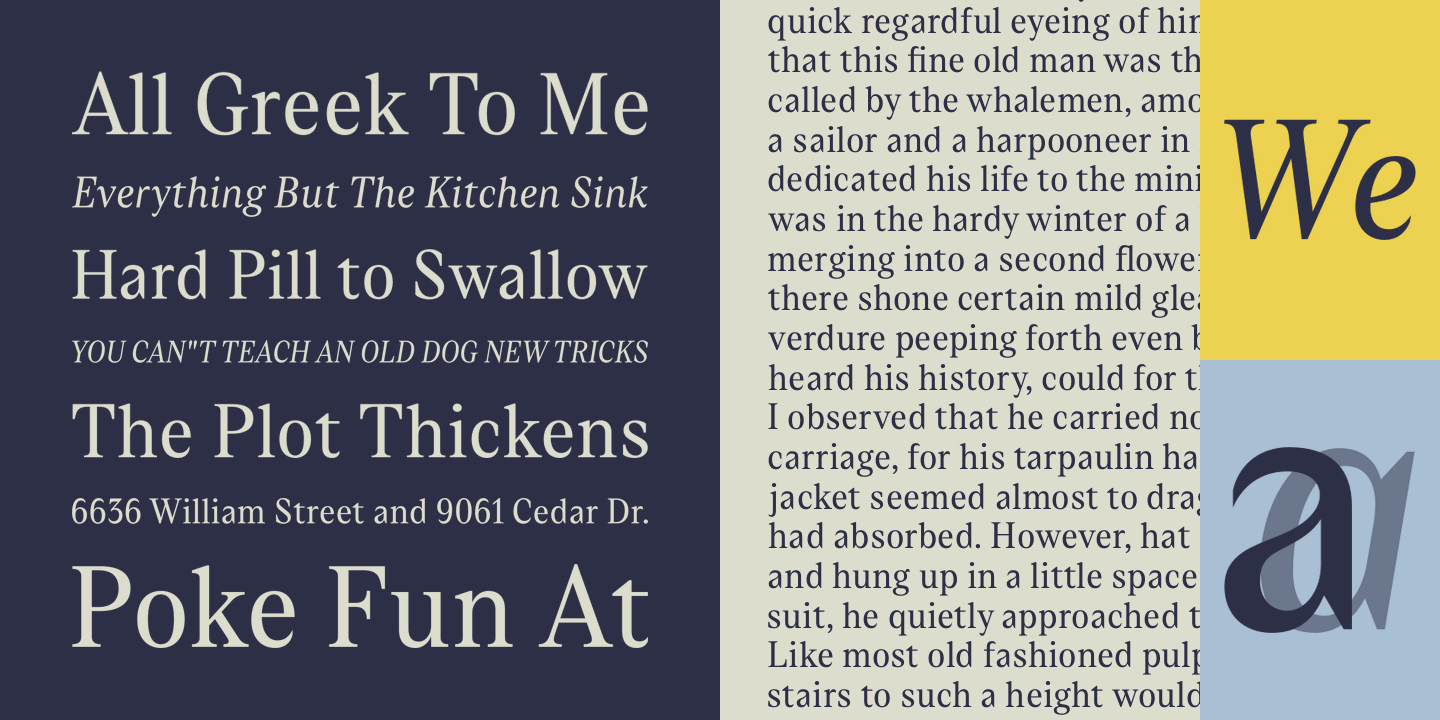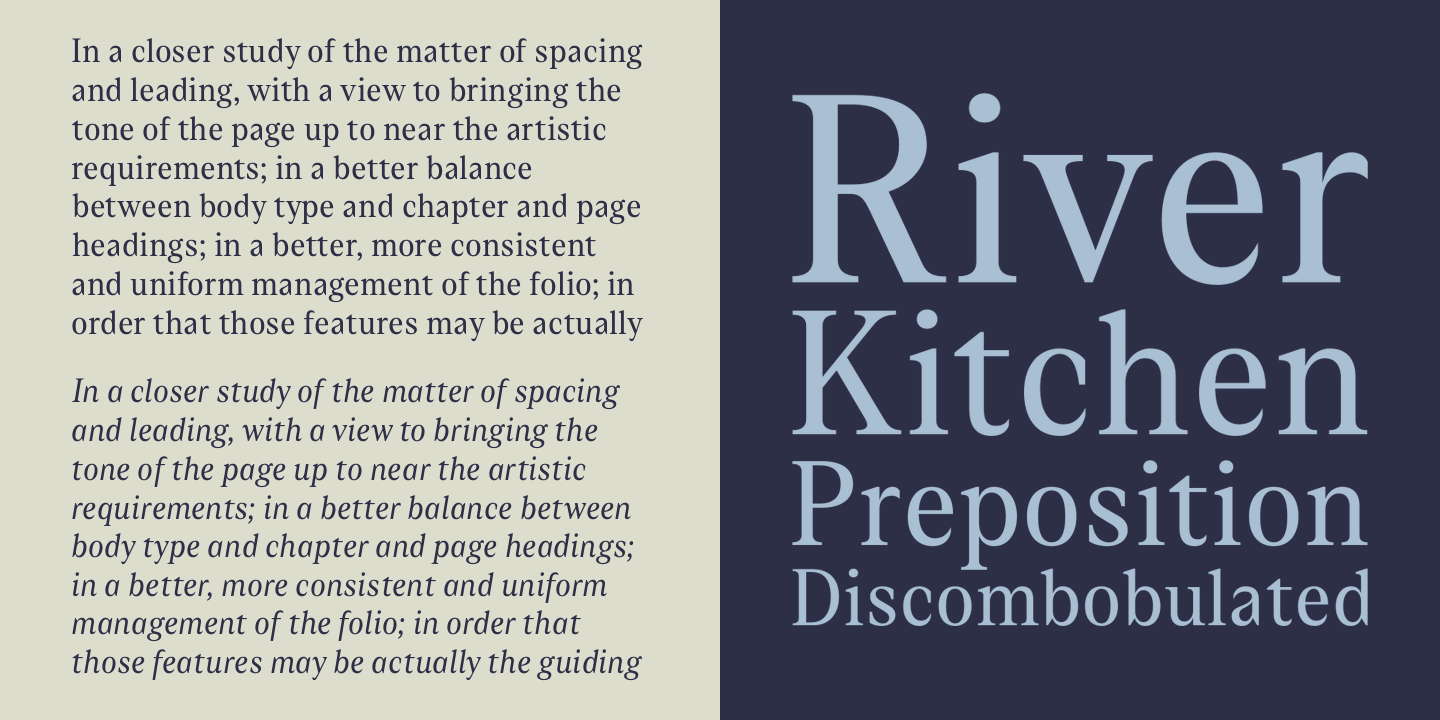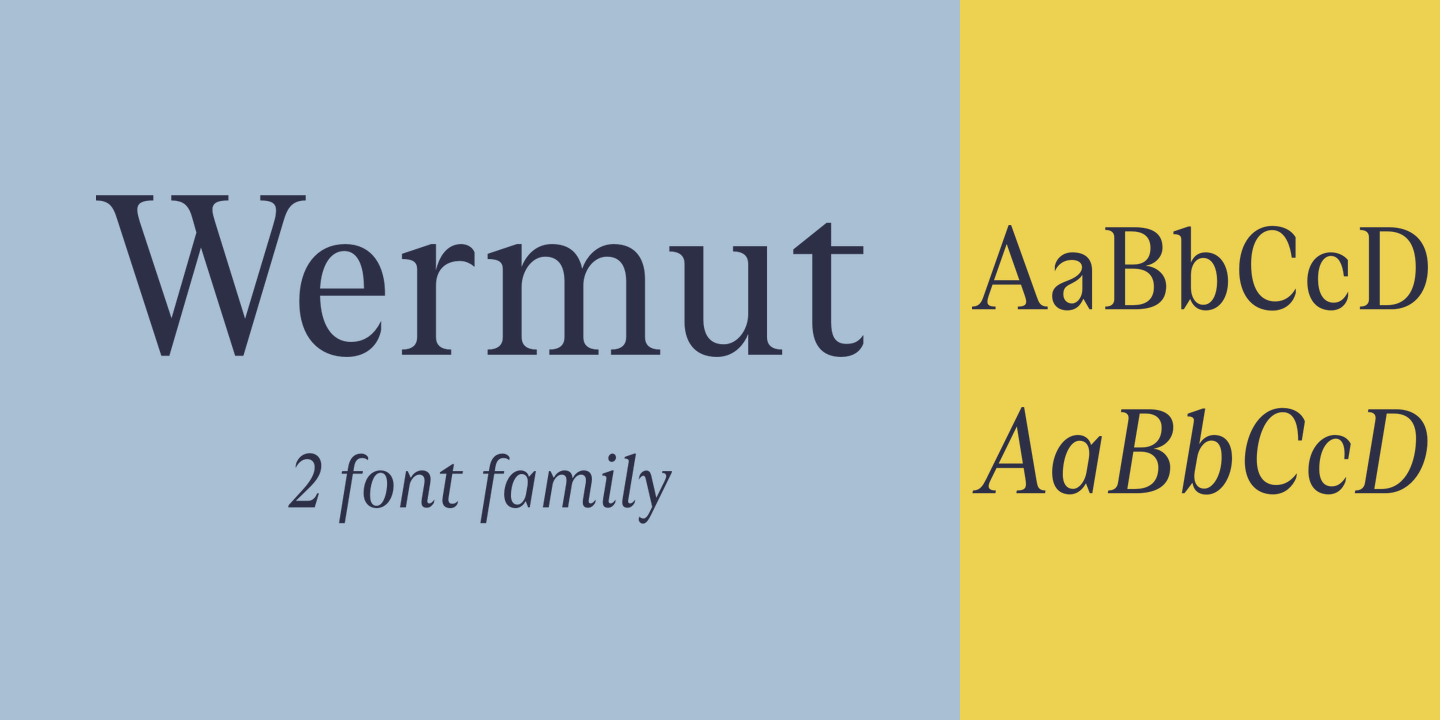
Our May 2016 issue of Font Faves features Newcastle from FaceType, Wermut from Brownfox, and Idea from Eurotypo.
Need your big blocky distressed sans to be extra wide as well? Then Newcastle by FaceType is the perfect font for you. It comes with the standard set of characters, plus shadows and lots of extra characters for super cheap. It’s a great place to start your hipster collection.
Newcastle
FaceType
Brownfox makes their venture into the land of serif fonts with Wermut (German for Vermouth). Its dark color, compressed, spring-like shapes, well-built proportions, and agreeable letterforms all look safe enough until one is jolted to encounter the clipped serifs that lend the page an unexpected edgy appearance.
Wermut
Brownfox
A brush script in the classic style, Idea by Eurotypo is perfect for getting a vintage vibe. There are a lot of brush scripts out there, so use a unique one and stand out! Idea also has a condensed version, which works really well when space is at a premium - a quality many brush fonts do not have.
Idea
Eurotypo